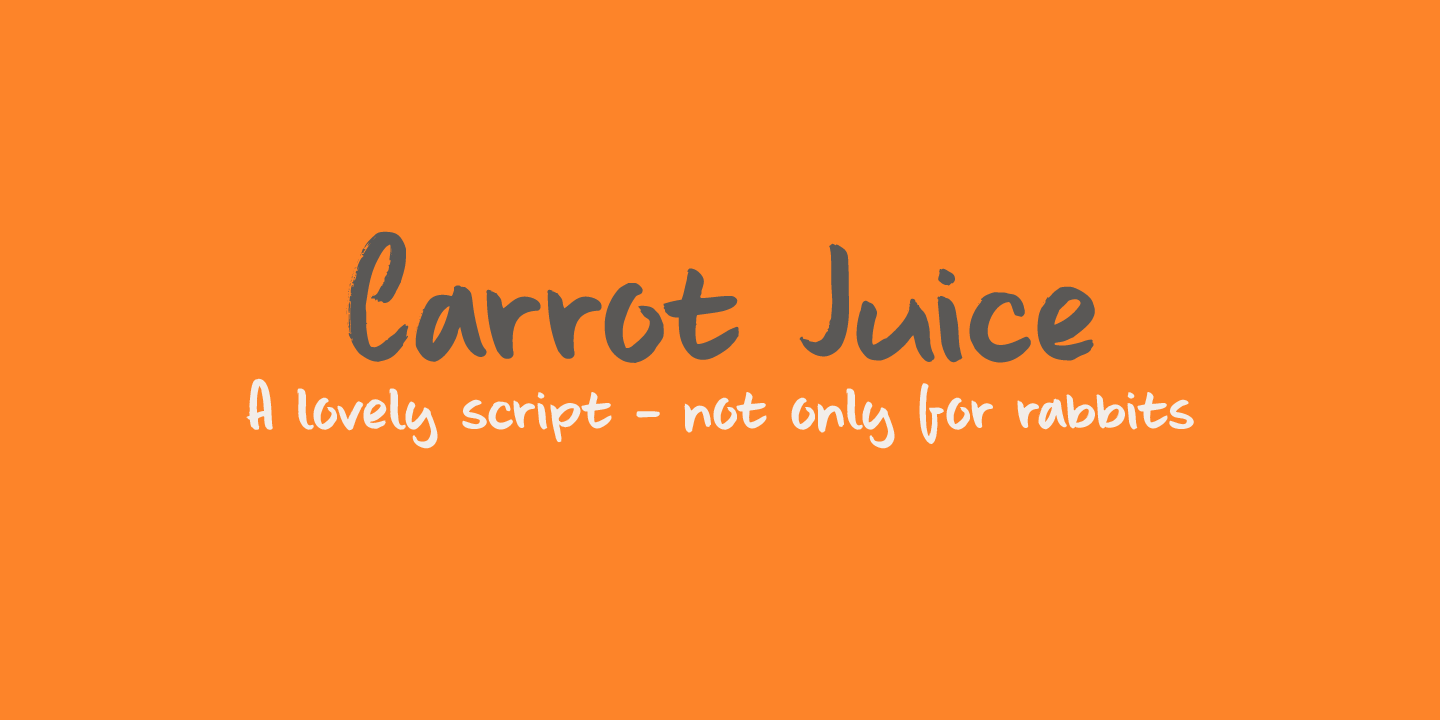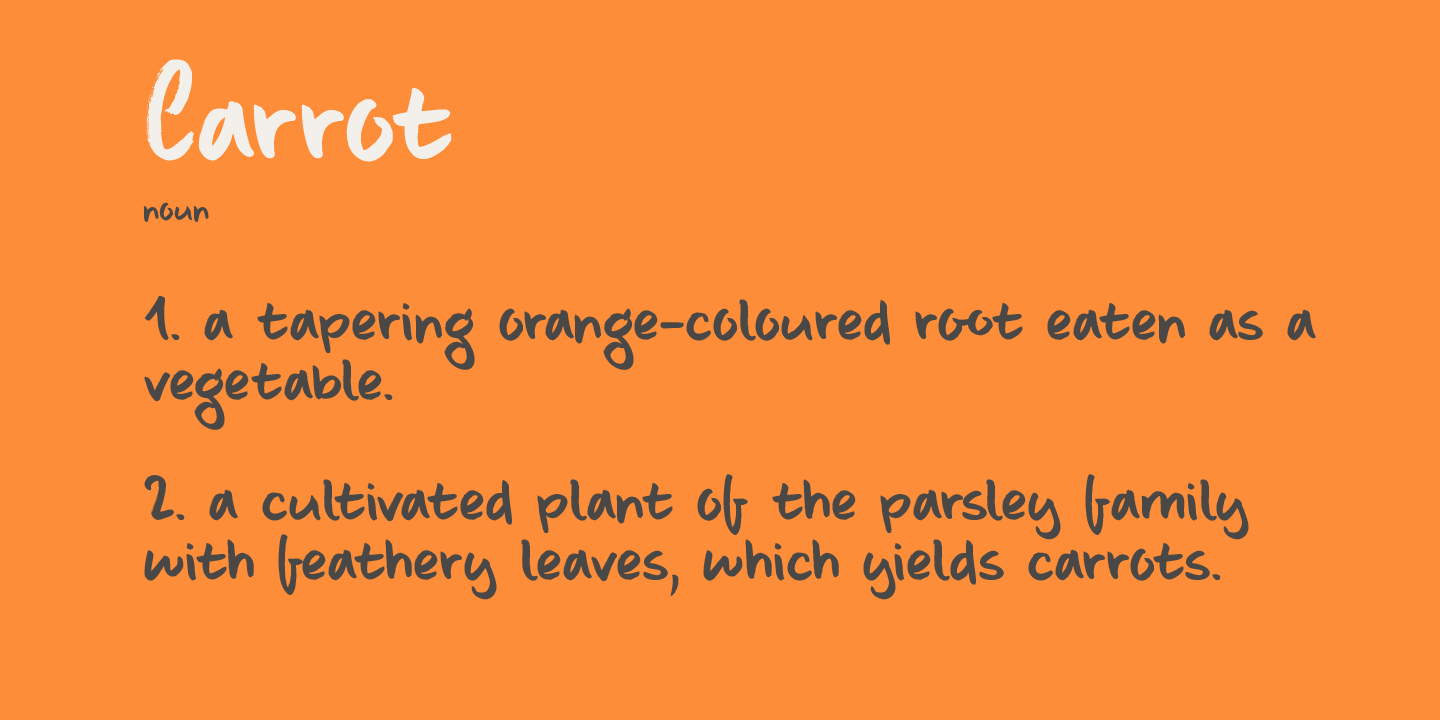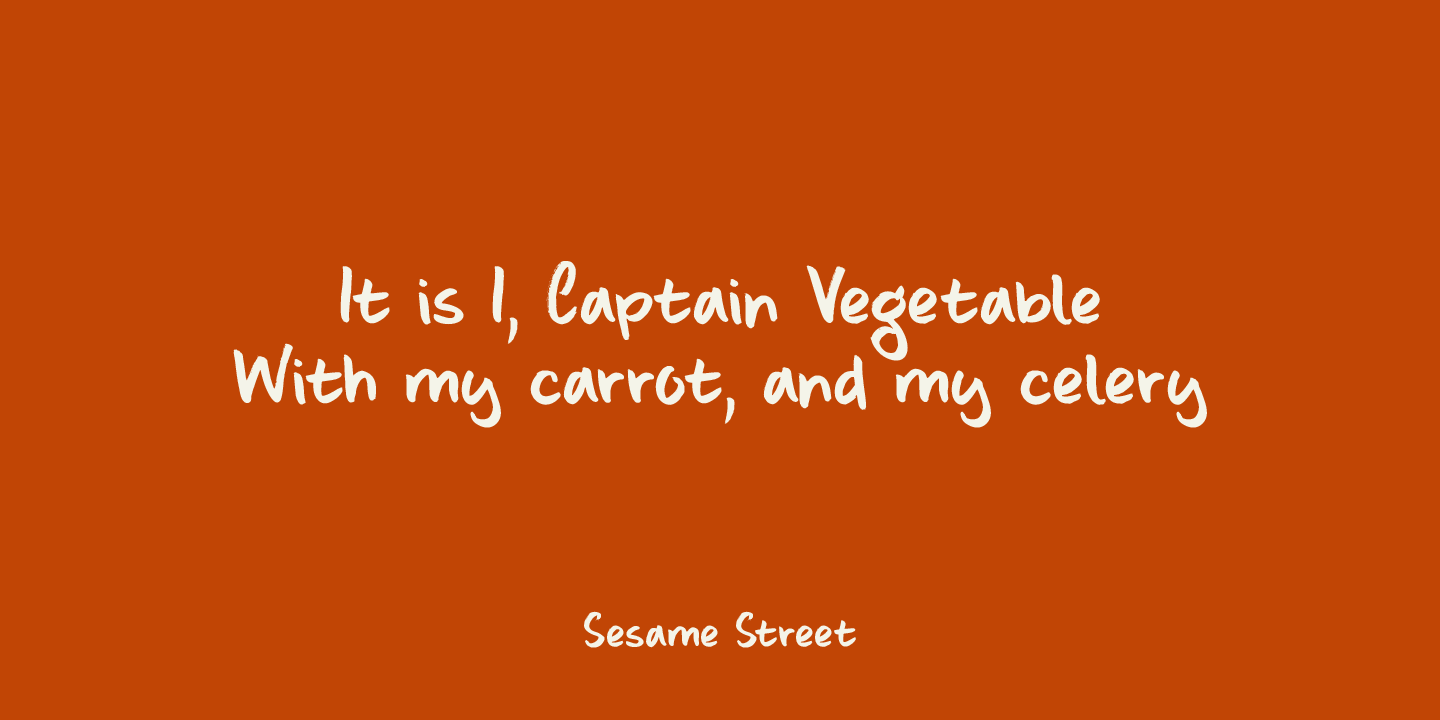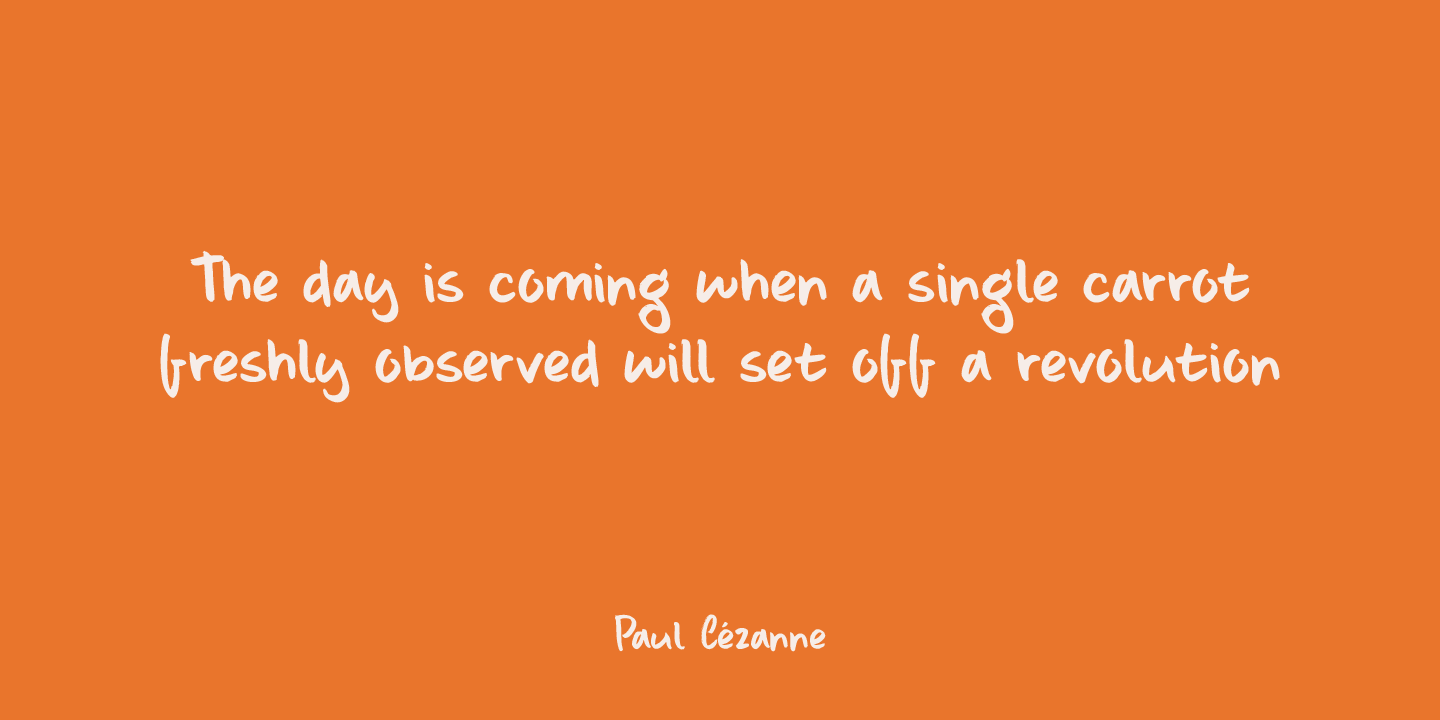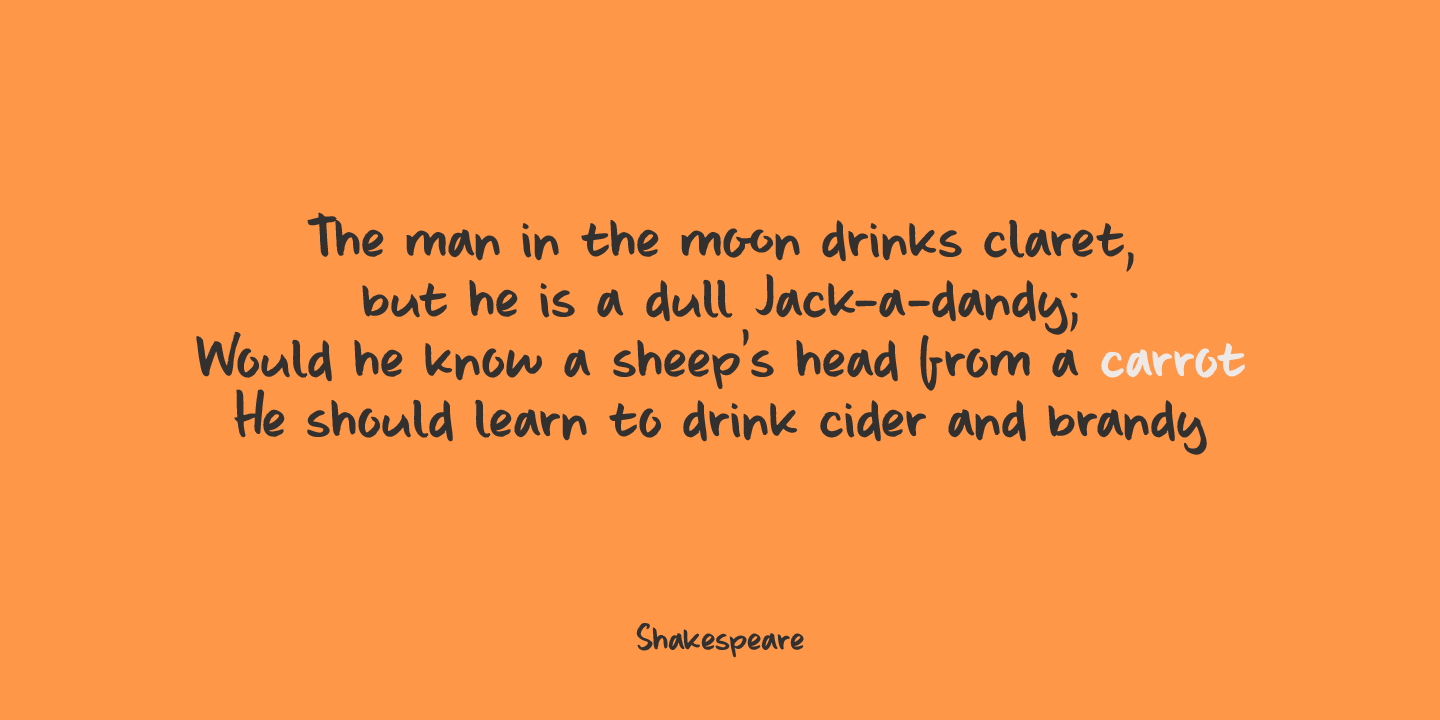
Carrot Juice
I like Carrot Juice a lot. I don't drink it that often (and I should, really), but nothing beats a freshly squeezed glass of cold carrot juice!!
Carrot Juice font is a lovely script font: handmade with love (and a rather cheap Chinese brush pen which I bought online). Carrot Juice will come in handy when you need that handmade look - cookbooks, websites and product packaging spring to mind.
Comes with a abundant harvest of diacritics.